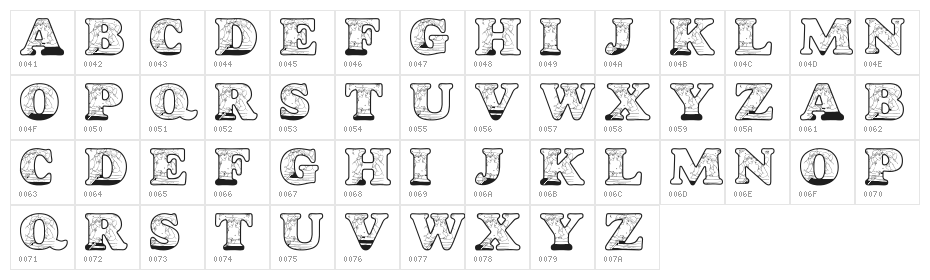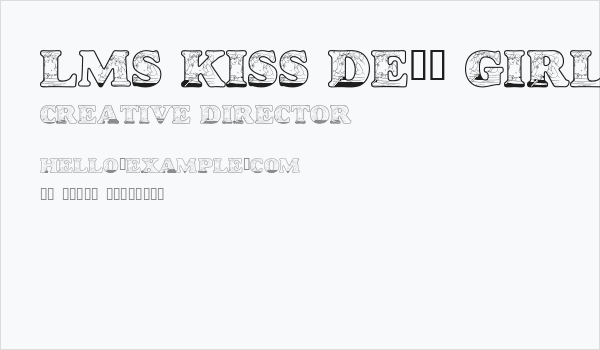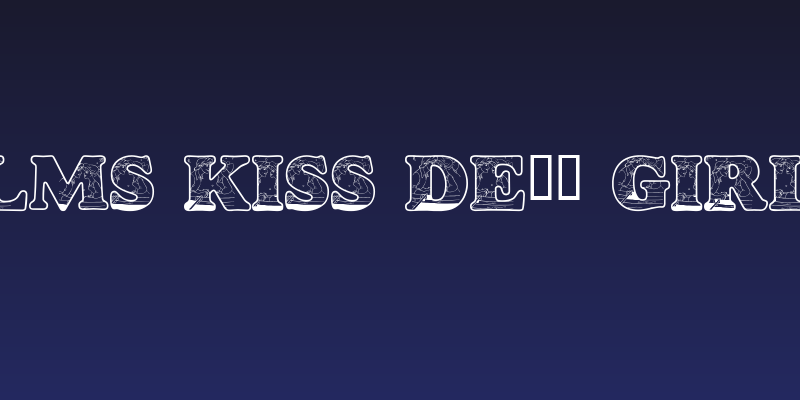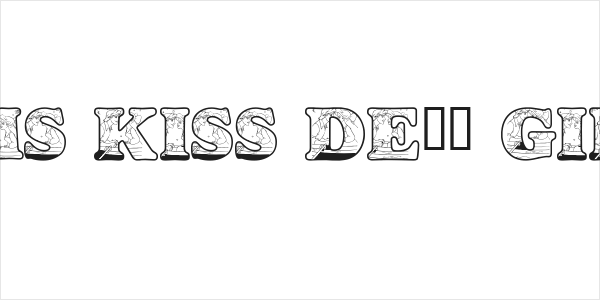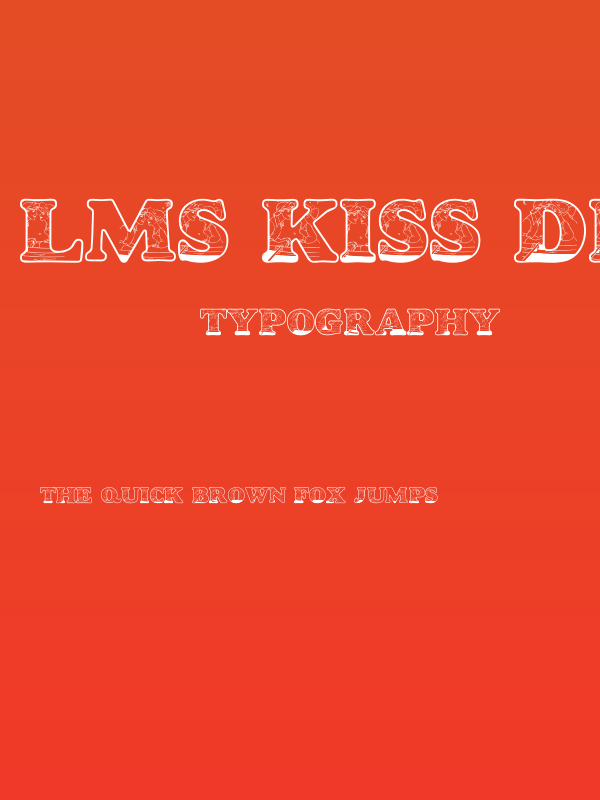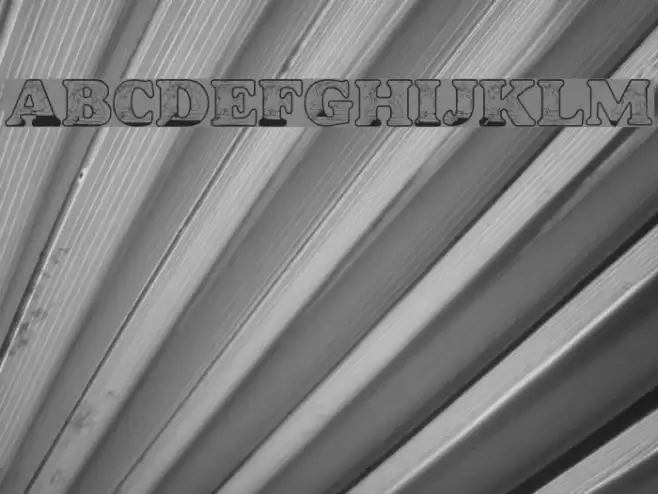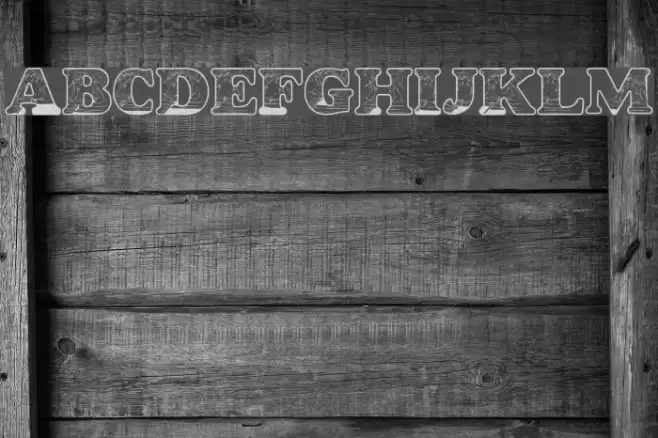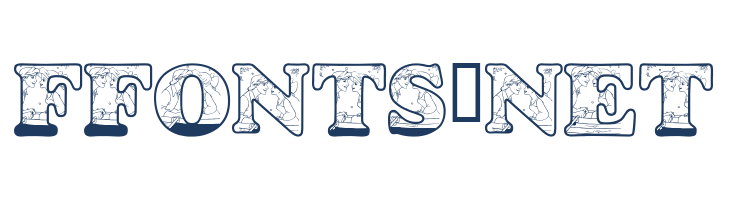
LMS Kiss de' Girl Font
This decorative font features a playful and whimsical design, with intricate patterns filling the interior of each letter. The uppercase letters are bold and eye-catching, making them ideal for creating striking headlines or titles. The font's unique style is characterized by its artistic embellishments, which add a touch of creativity and fun to any project. The overall appearance is both charming and engaging, making it suitable for a variety of creative applications.